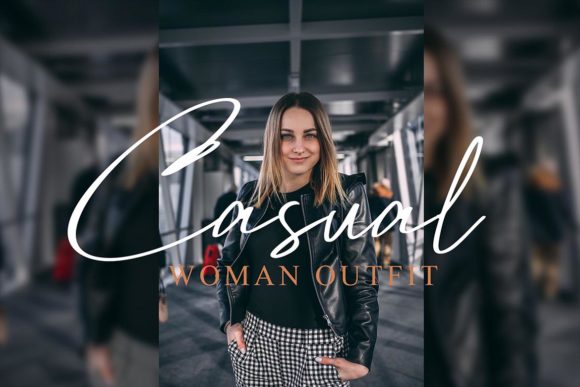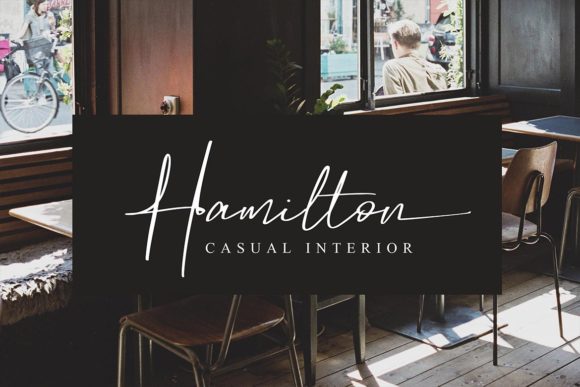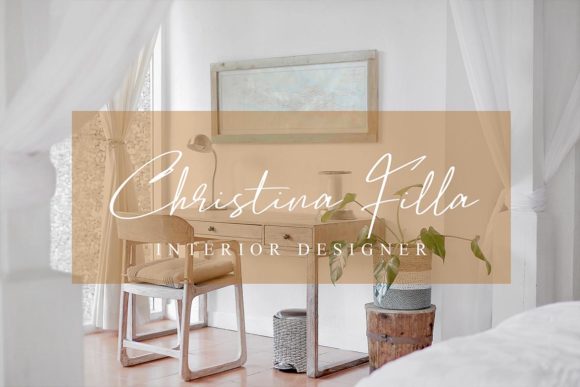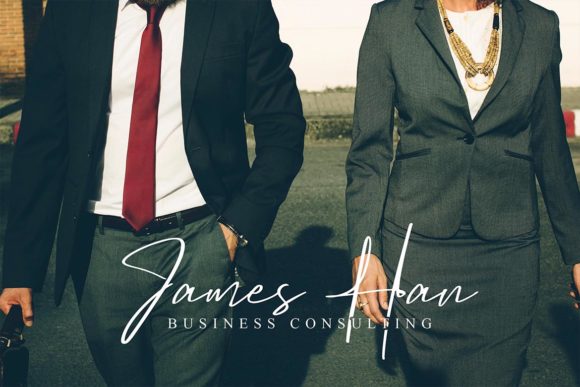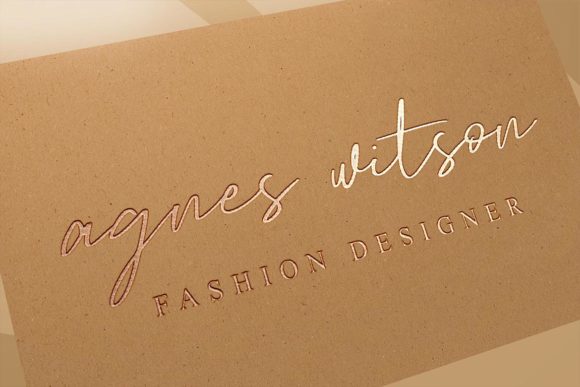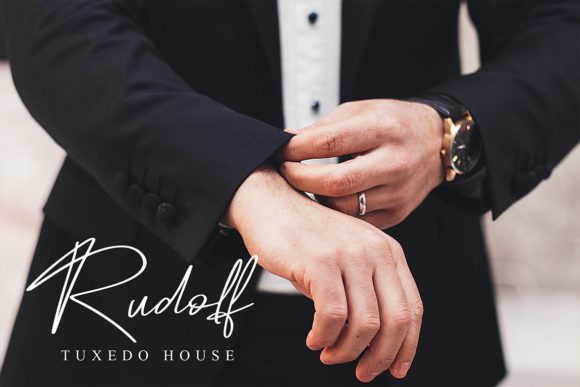
Hamilton Font: Elevate Your Designs with Elegance and Sophistication
In the world of typography, fonts play a crucial role in conveying the tone and personality of a design. For designers and crafters seeking to add a touch of elegance and sophistication to their work, the Hamilton font is an excellent choice. This beautiful signature script is perfect for a variety of applications, including signatures, watermarks, photography, business designs, and more.
The Hamilton Font: A Closer Look
The Hamilton font is an exquisite example of a signature script, characterized by its flowing lines, intricate details, and classic charm. Its elegant appearance makes it an ideal choice for designers looking to add a touch of refinement to their work. Whether you’re creating a logo, business card, or social media graphic, the Hamilton font is sure to make a lasting impression.
Perfect for Signature Purposes
One of the primary uses of the Hamilton font is for signature purposes. Its unique and elegant design makes it perfect for adding a personal touch to documents, letters, and other written materials. Whether you’re a business owner looking to add a professional signature to your emails or a crafty individual seeking to add a personal touch to your handmade creations, the Hamilton font is an excellent choice.
Watermarks and Photography
In addition to its use in signatures, the Hamilton font is also well-suited for use in watermarks and photography. Its subtle yet elegant design makes it perfect for adding a touch of sophistication to your photos and other visual materials. Whether you’re a professional photographer or a hobbyist, the Hamilton font is a great choice for adding a watermark to your images.
Business Designs and More
The Hamilton font is not just limited to signatures and watermarks; it’s also perfect for a variety of business design applications. Its elegant appearance makes it an excellent choice for use in logos, business cards, brochures, and other marketing materials. Additionally, the Hamilton font can be used in a variety of craft projects, such as handmade cards, gift tags, and other paper crafts.
Why Choose the Hamilton Font?
So why choose the Hamilton font for your design needs? Here are just a few reasons:
- Elegance and sophistication: The Hamilton font is a beautiful and elegant script that adds a touch of refinement to any design.
- Versatility: The Hamilton font can be used in a variety of applications, from signatures and watermarks to business designs and craft projects.
- Easy to read: Despite its elegant appearance, the Hamilton font is easy to read, making it perfect for use in a variety of design applications.
- Unique and distinctive: The Hamilton font is a unique and distinctive script that will help your designs stand out from the crowd.
Tips for Using the Hamilton Font
Here are a few tips for using the Hamilton font in your designs:
- Use it sparingly: The Hamilton font is a elegant and sophisticated script, so use it sparingly to avoid overwhelming your design.
- Pair it with a simple font: Pair the Hamilton font with a simple font to create a striking contrast and add visual interest to your design.
- Experiment with different sizes and colors: Experiment with different sizes and colors to find the perfect combination for your design.
In conclusion, the Hamilton font is a beautiful and elegant signature script that’s perfect for a variety of design applications. Its unique and distinctive appearance makes it an excellent choice for designers and crafters seeking to add a touch of sophistication and refinement to their work. Whether you’re creating a logo, business card, or handmade craft, the Hamilton font is sure to make a lasting impression.